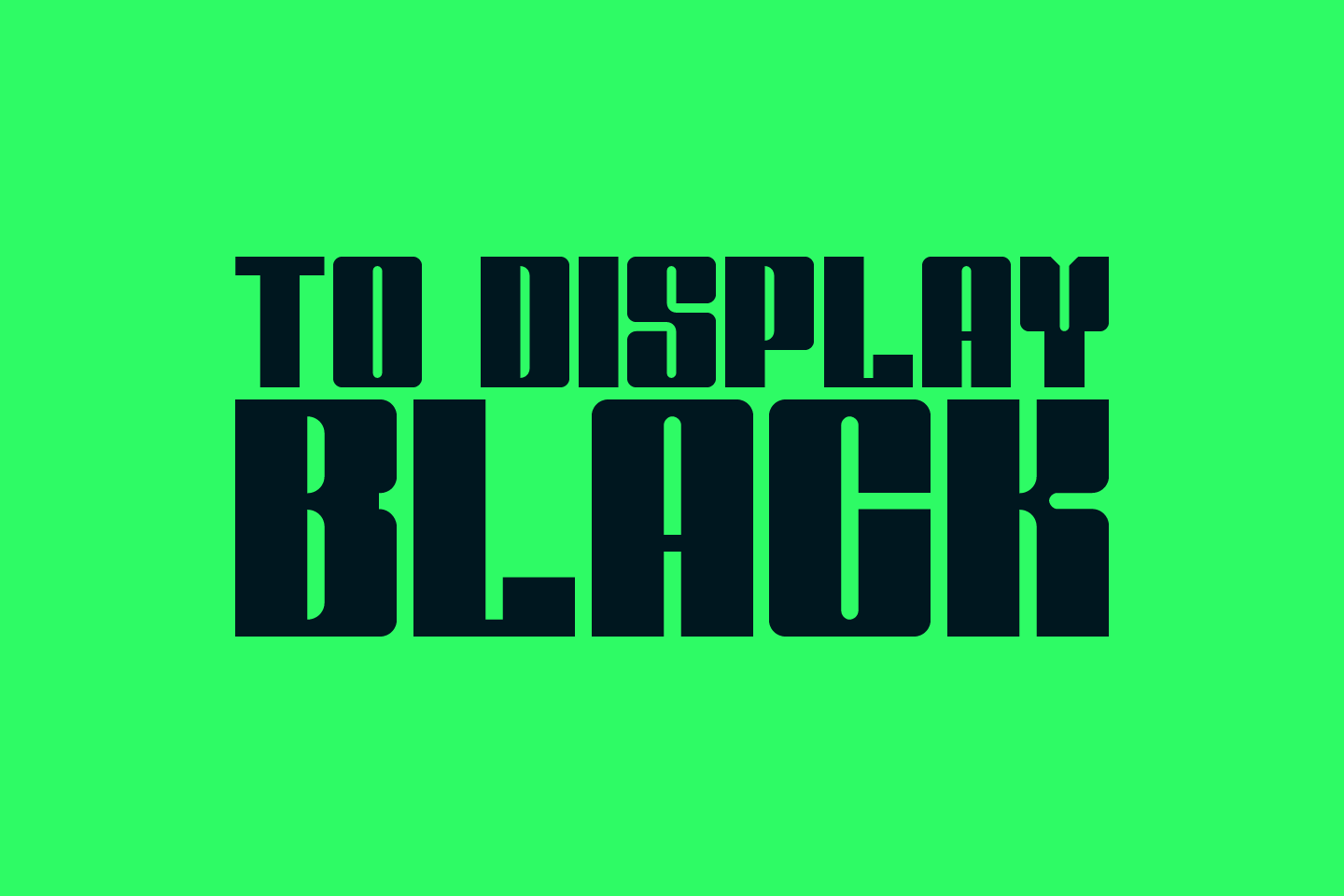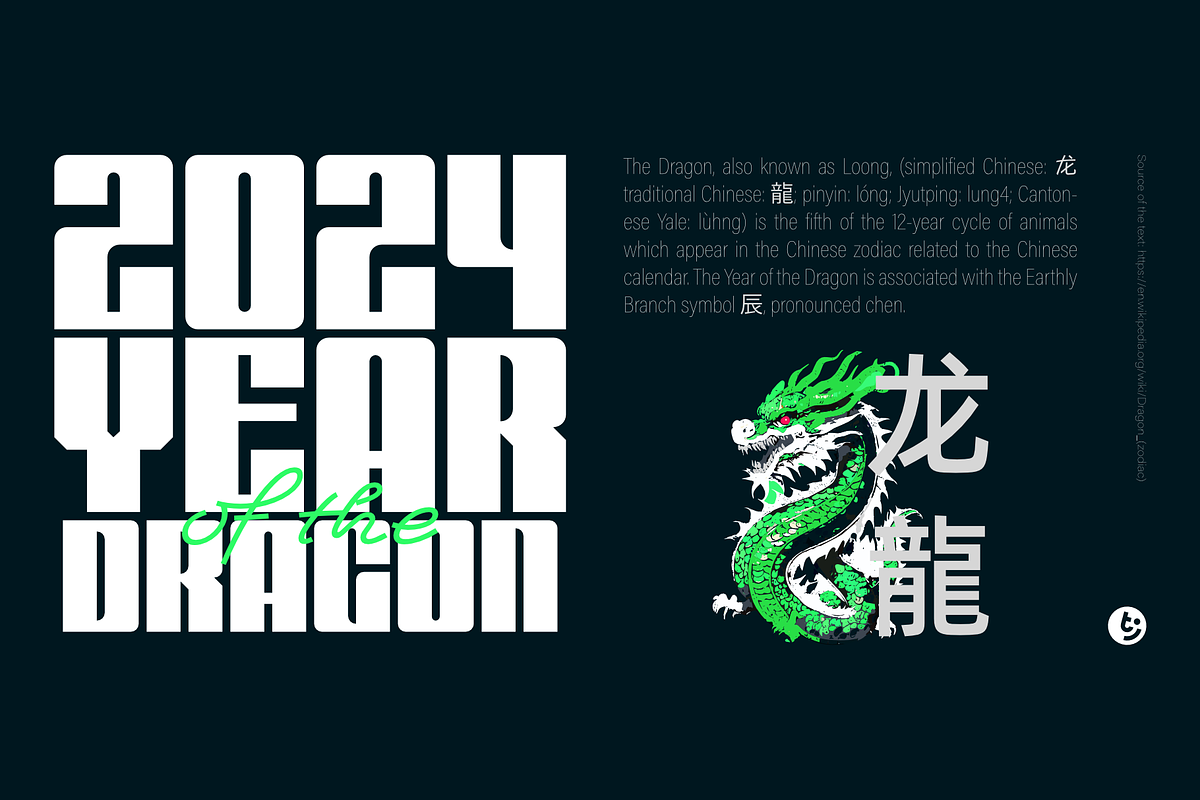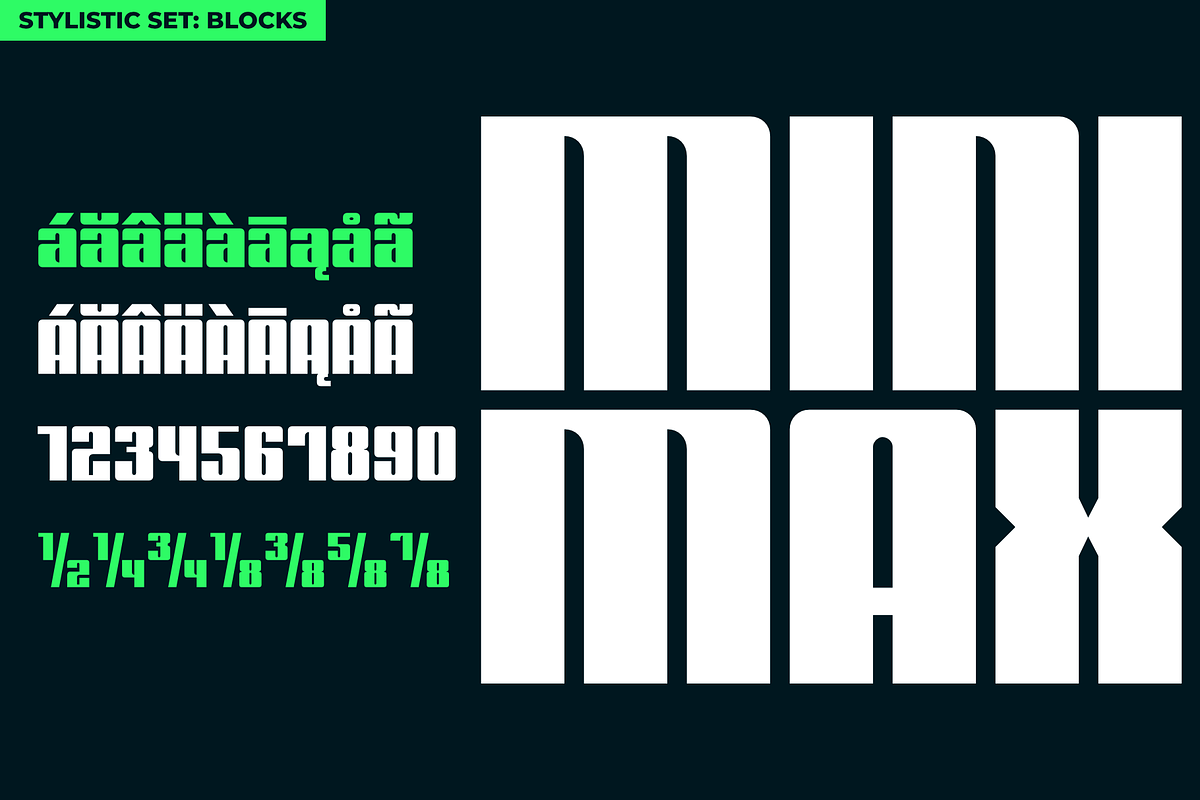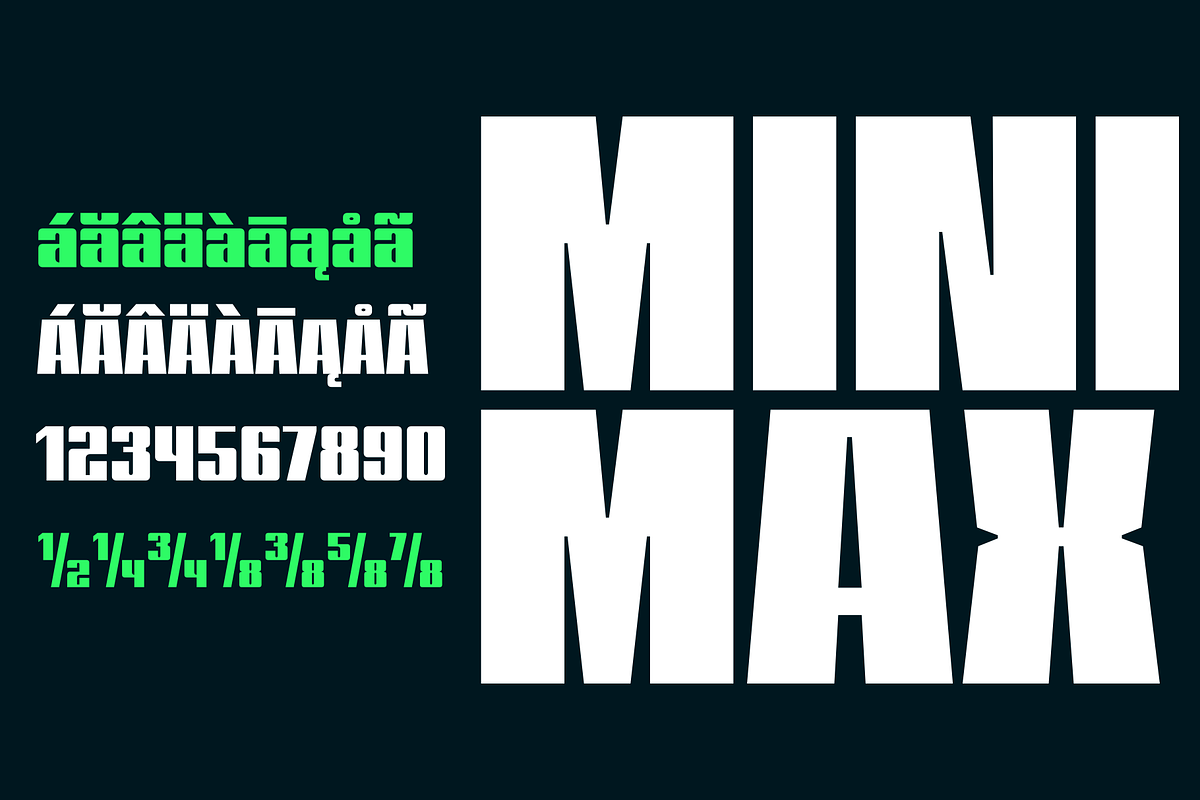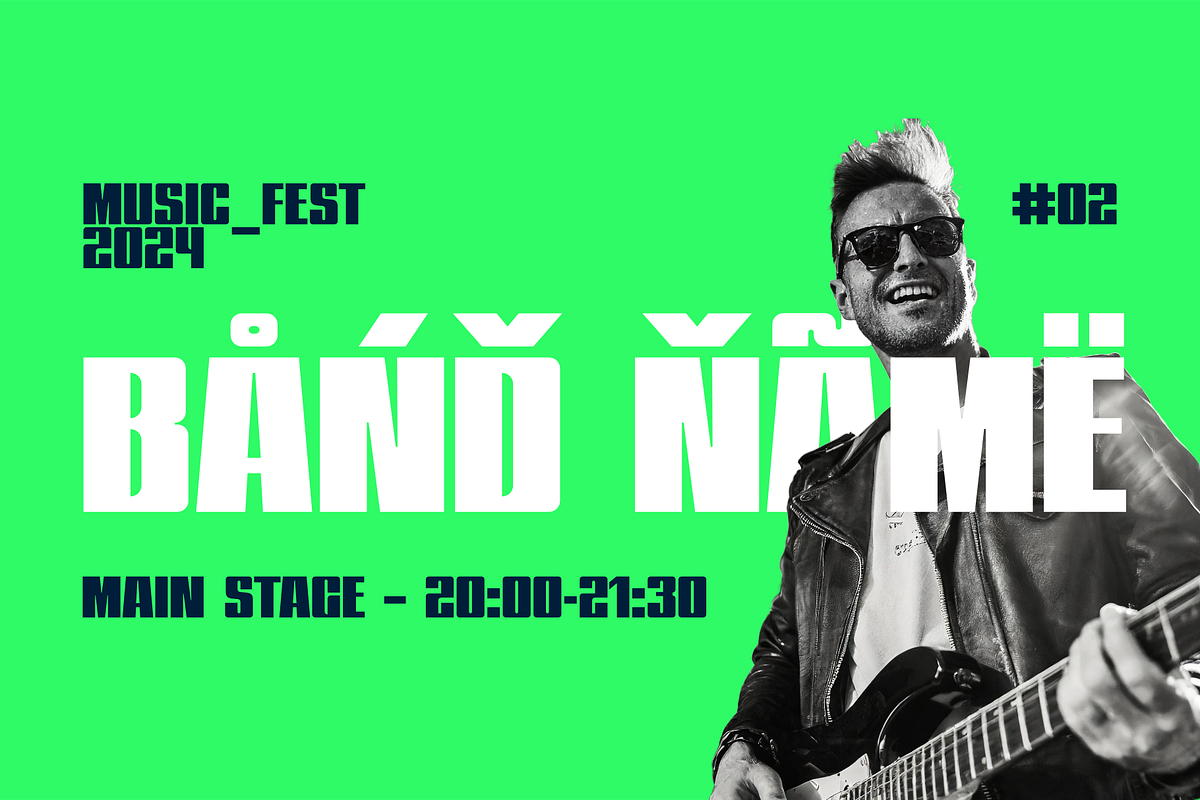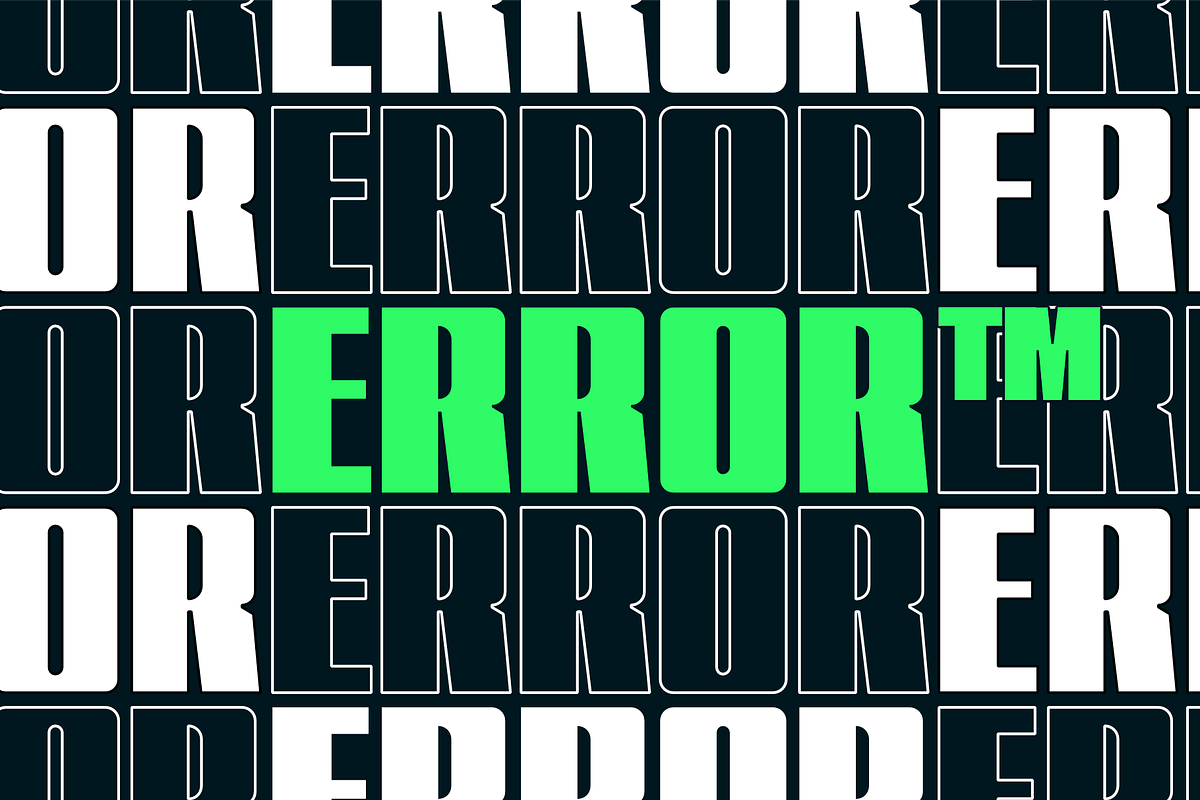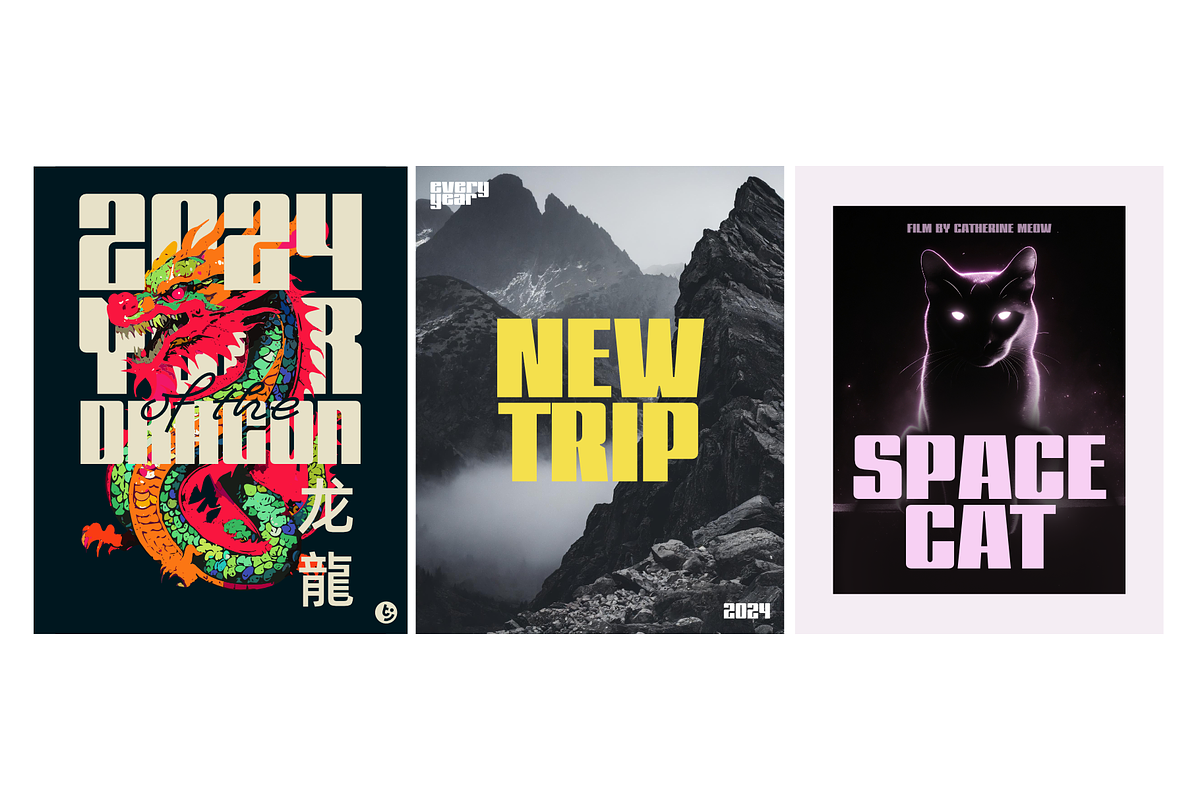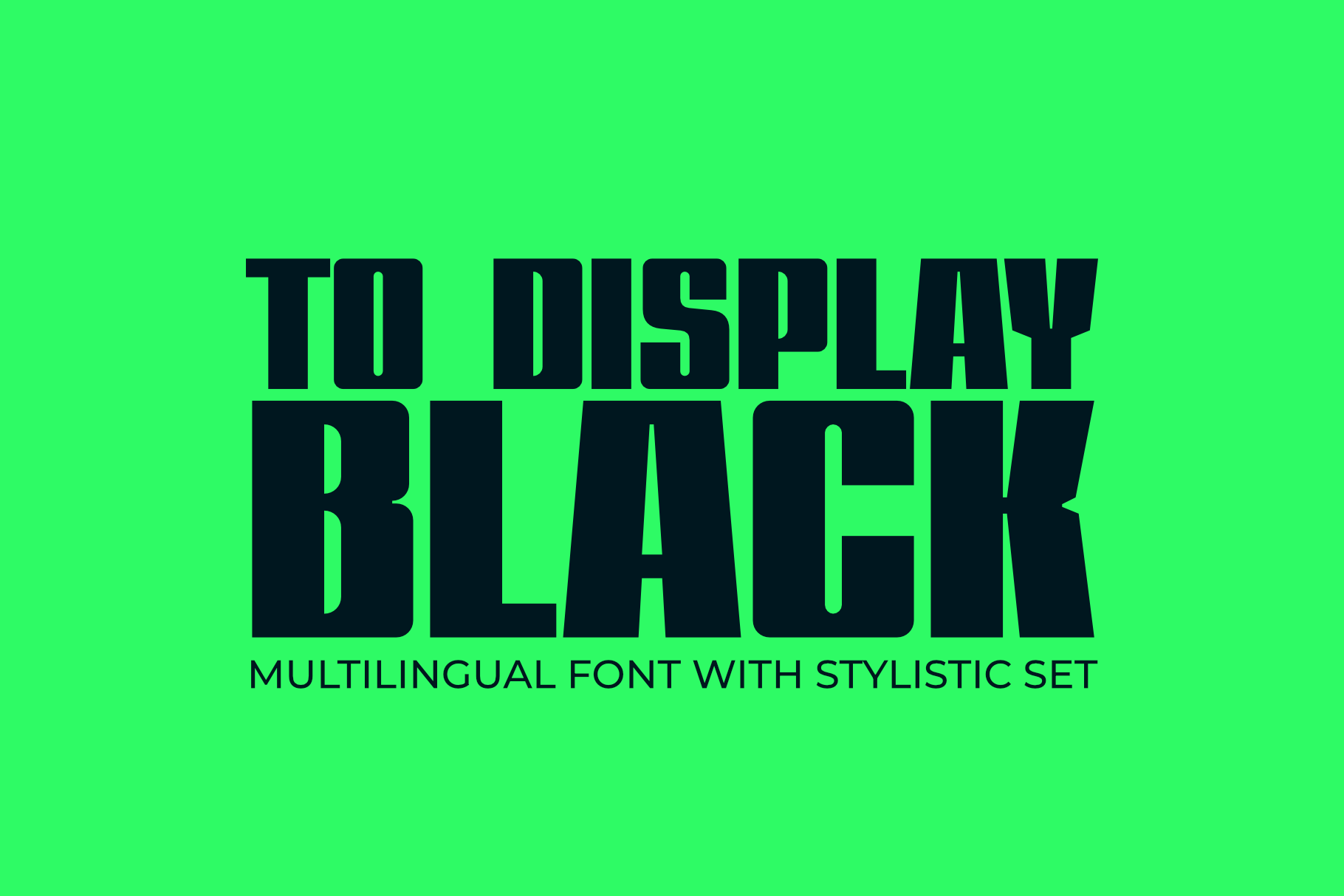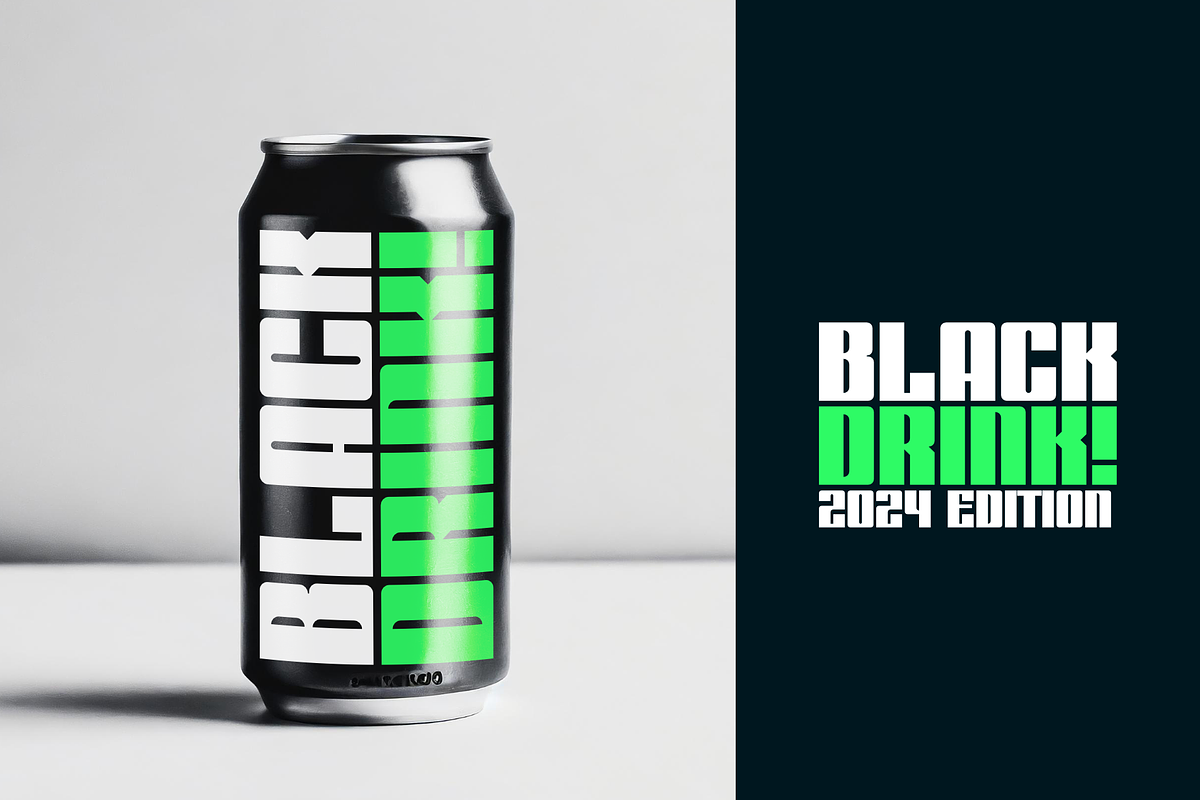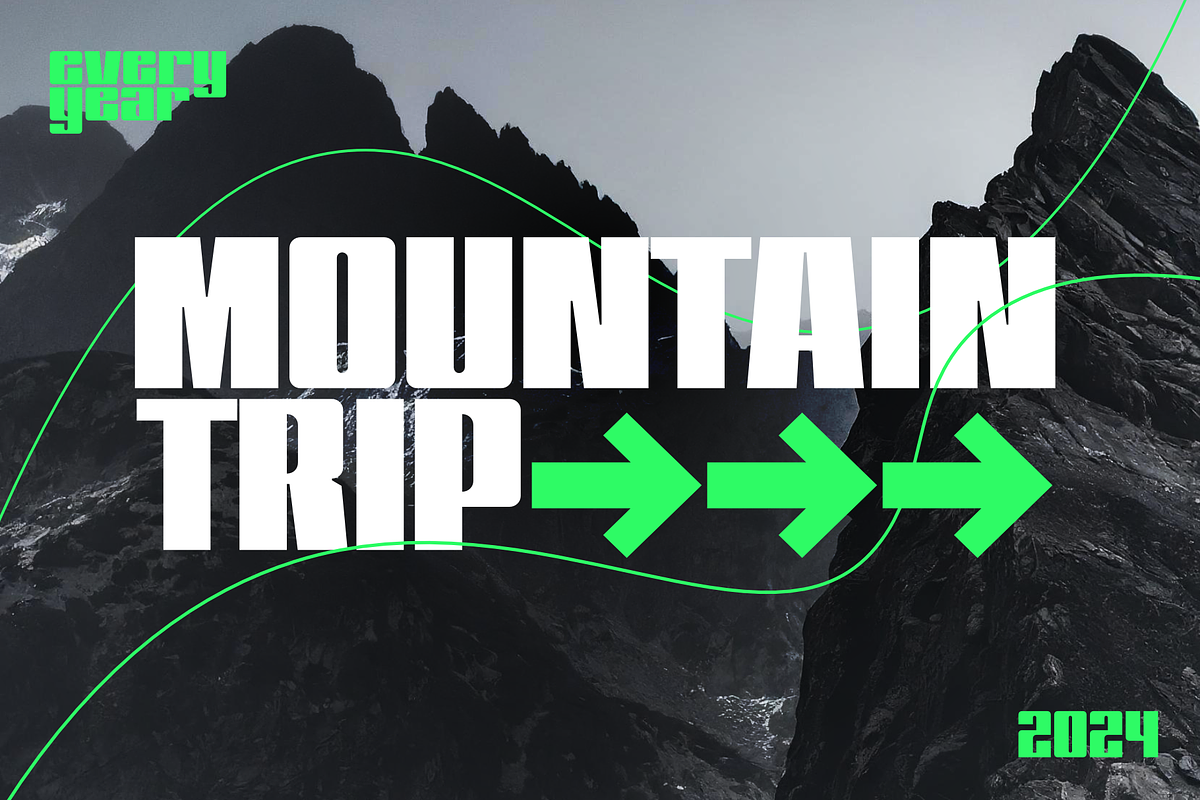
TO Display Black Typeface
Introducing TO Display Black, a typeface designed for impact and legibility. This bold, brave font is perfect for any design that needs to grab attention and hold it. TO Display Black shines when used for logos, branding, posters, and album covers, bringing an audacious and unflinching style to your designs. The font is specifically tailored to work exceptionally well in large sizes, ensuring your message is clear, no matter how big you go. Add TO Display Black to your typography toolkit and let your designs speak volumes.
TO Display Black is multilingual typeface with stylistic set (called "Blocks"), which will allow perfect letter alignment in your designs (perfect for logos and posters).